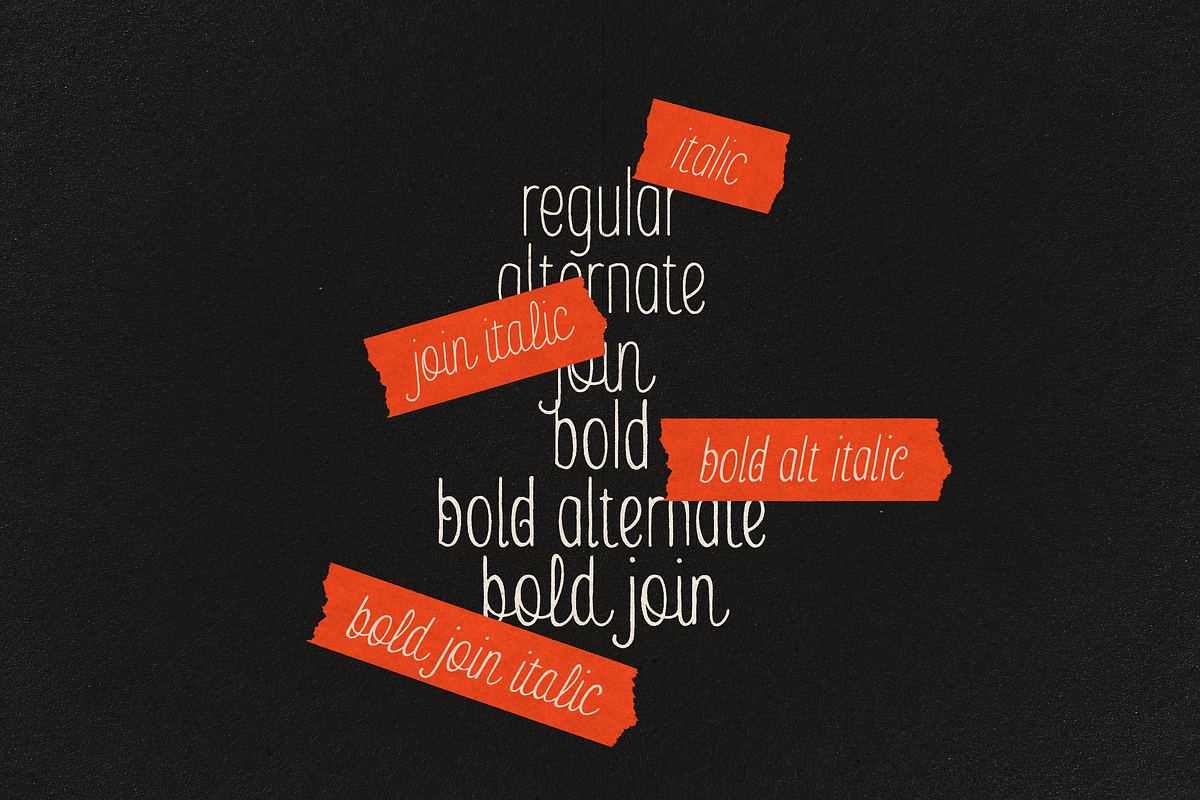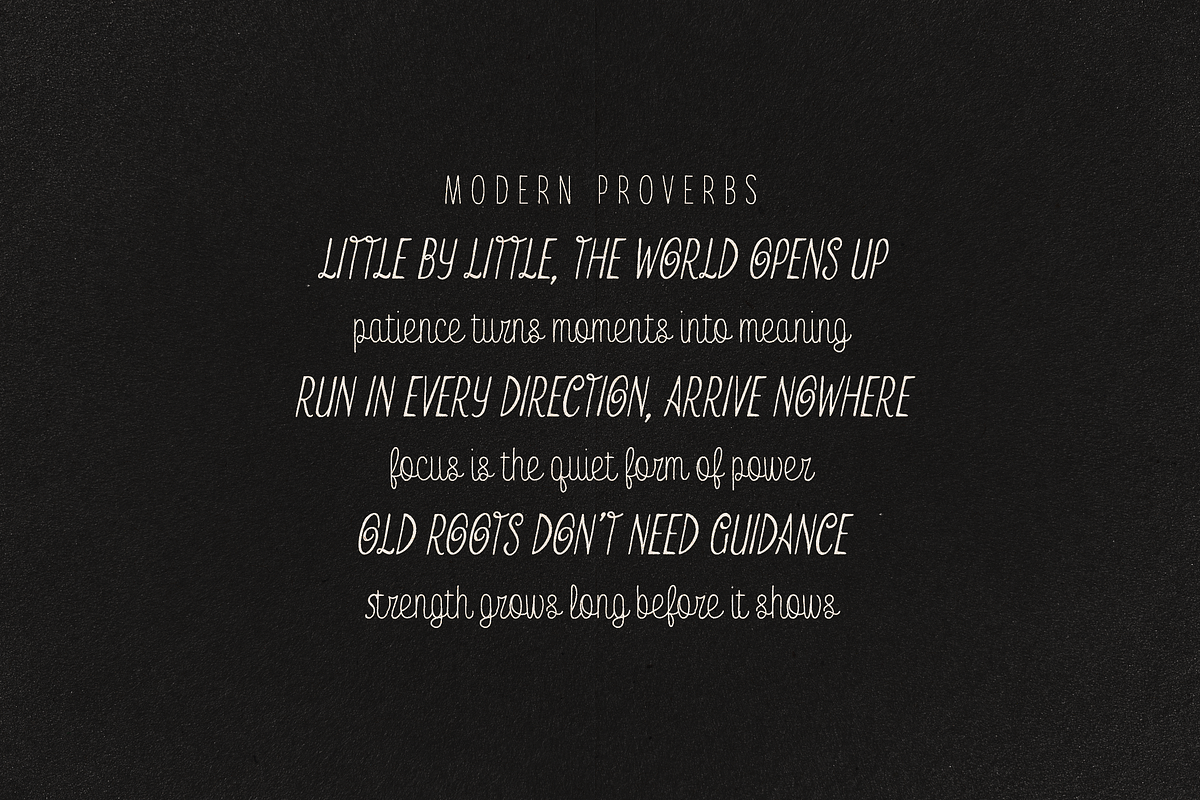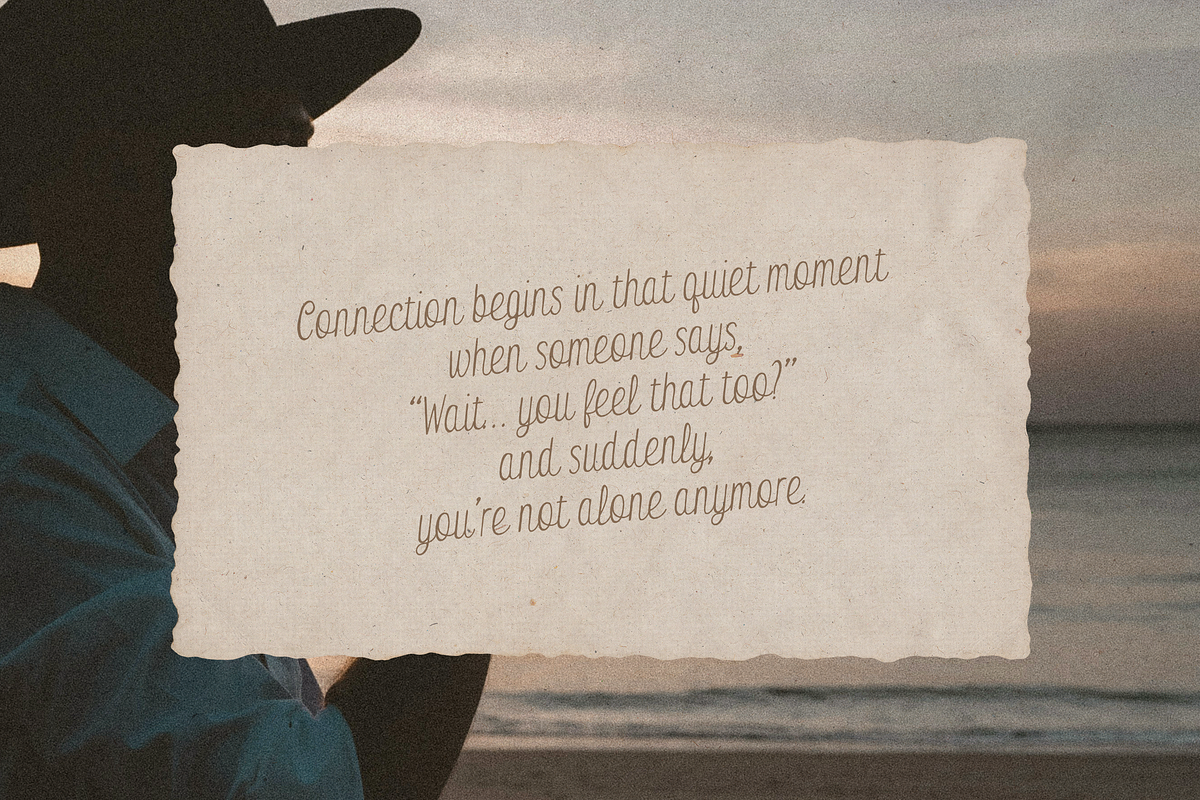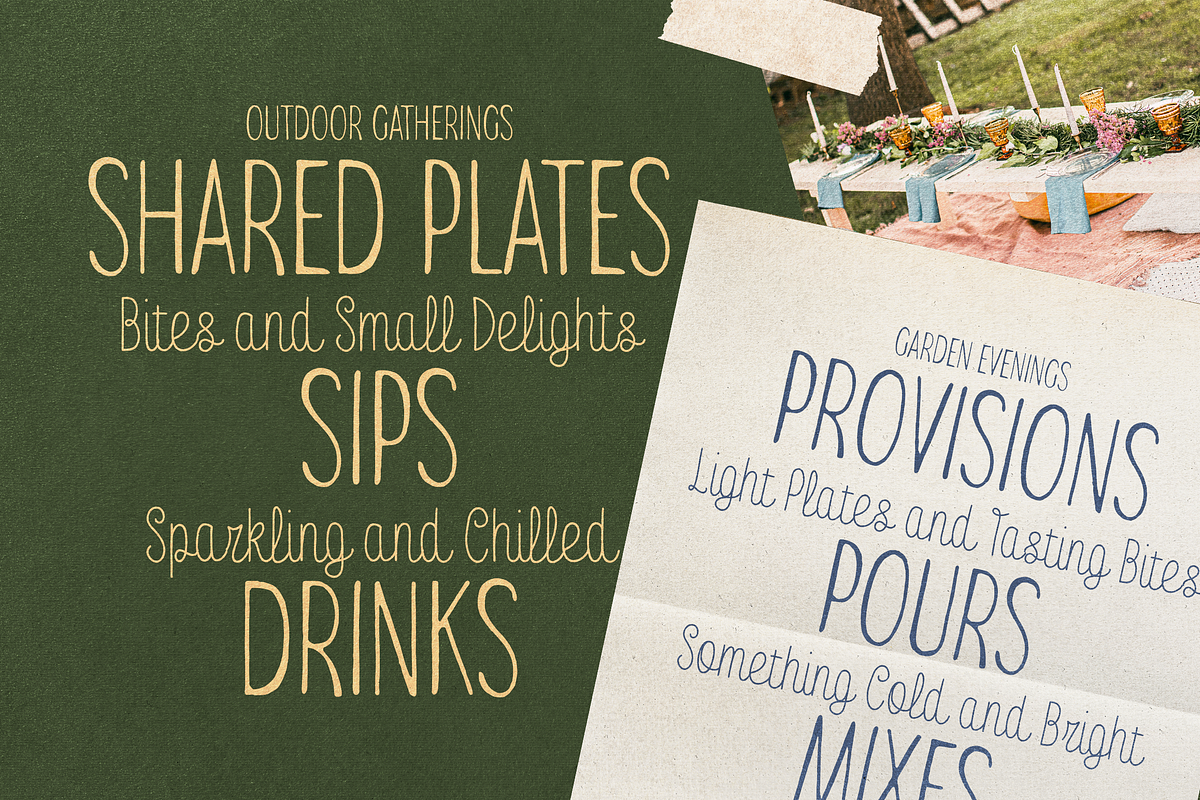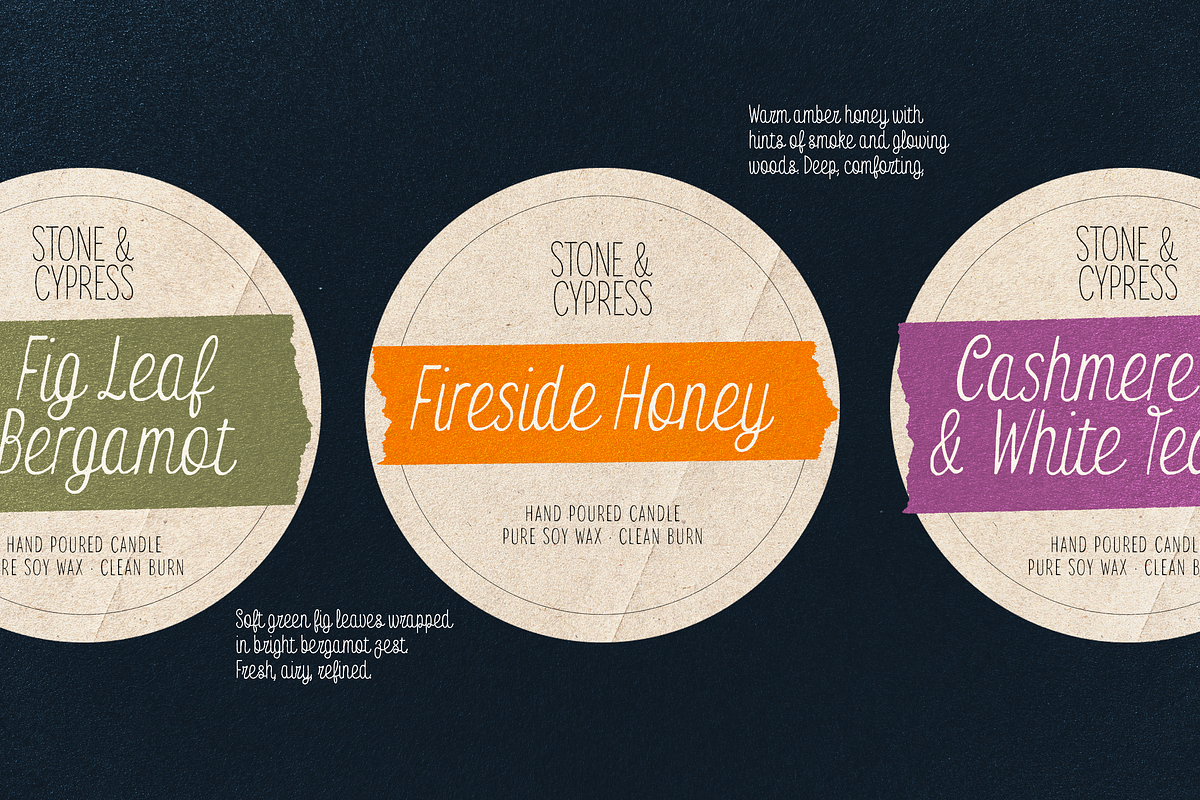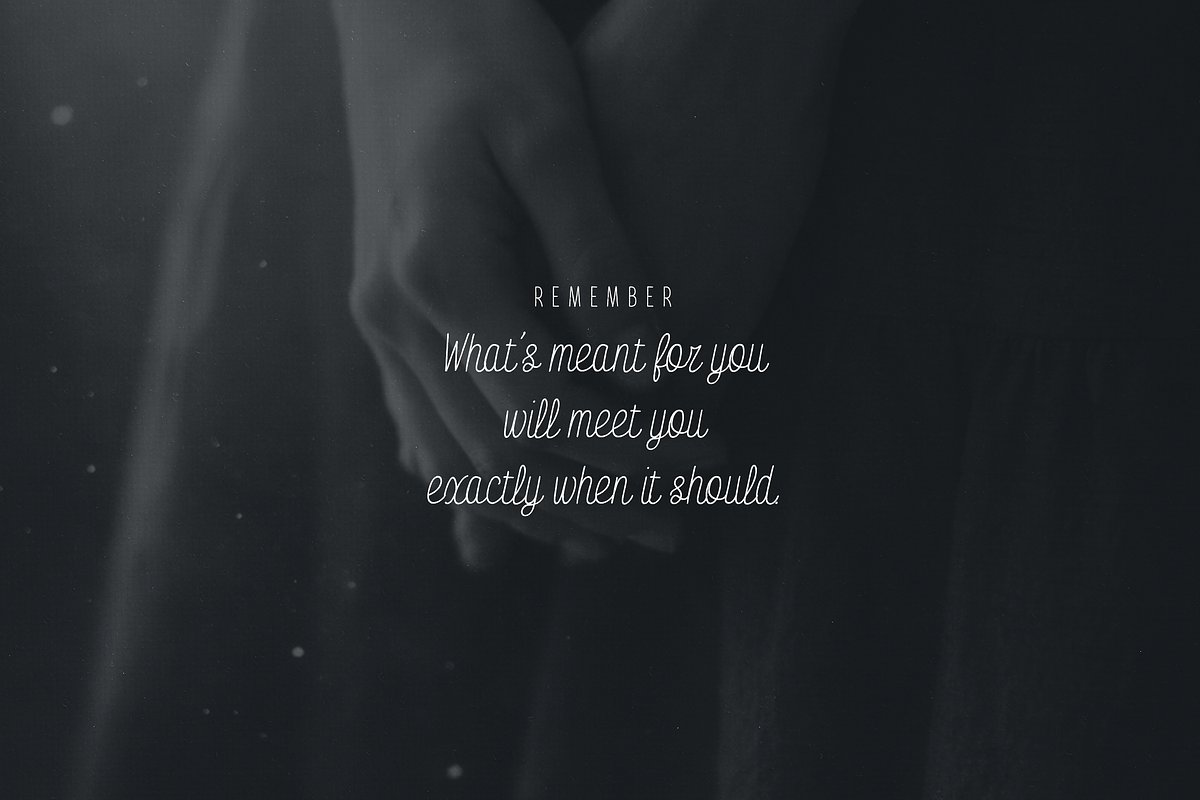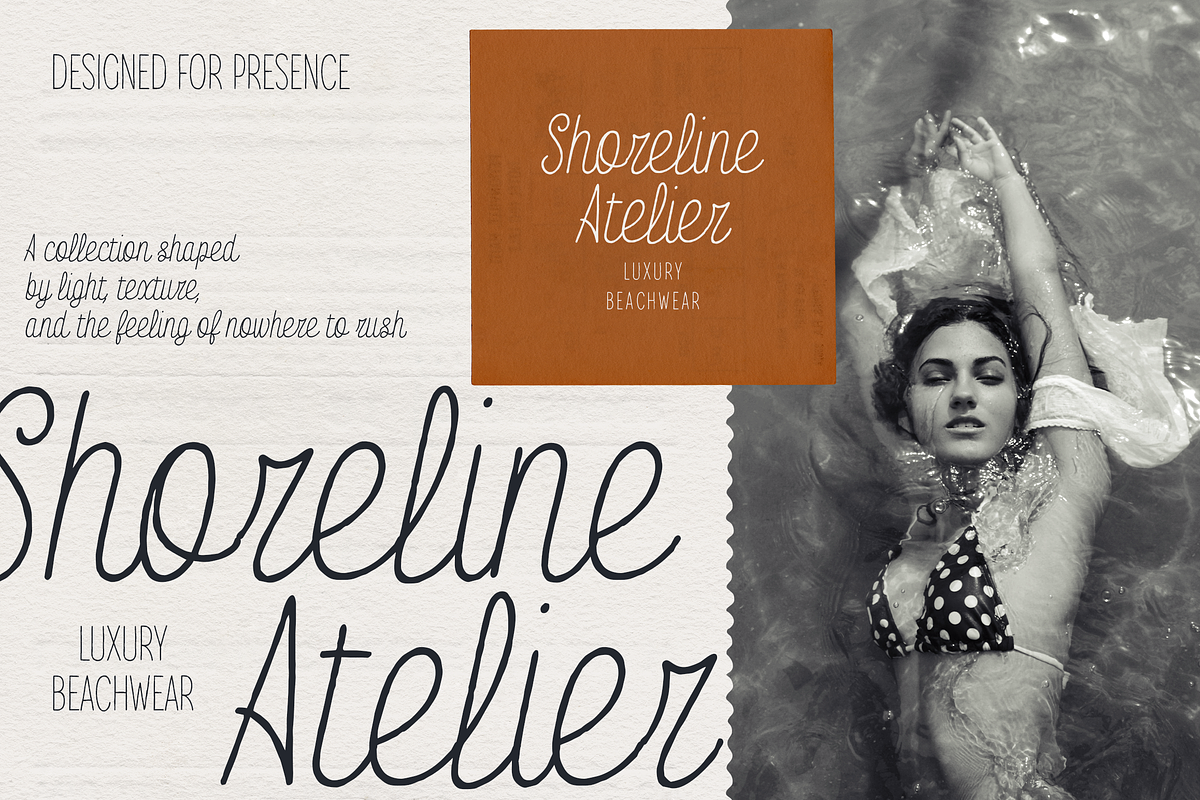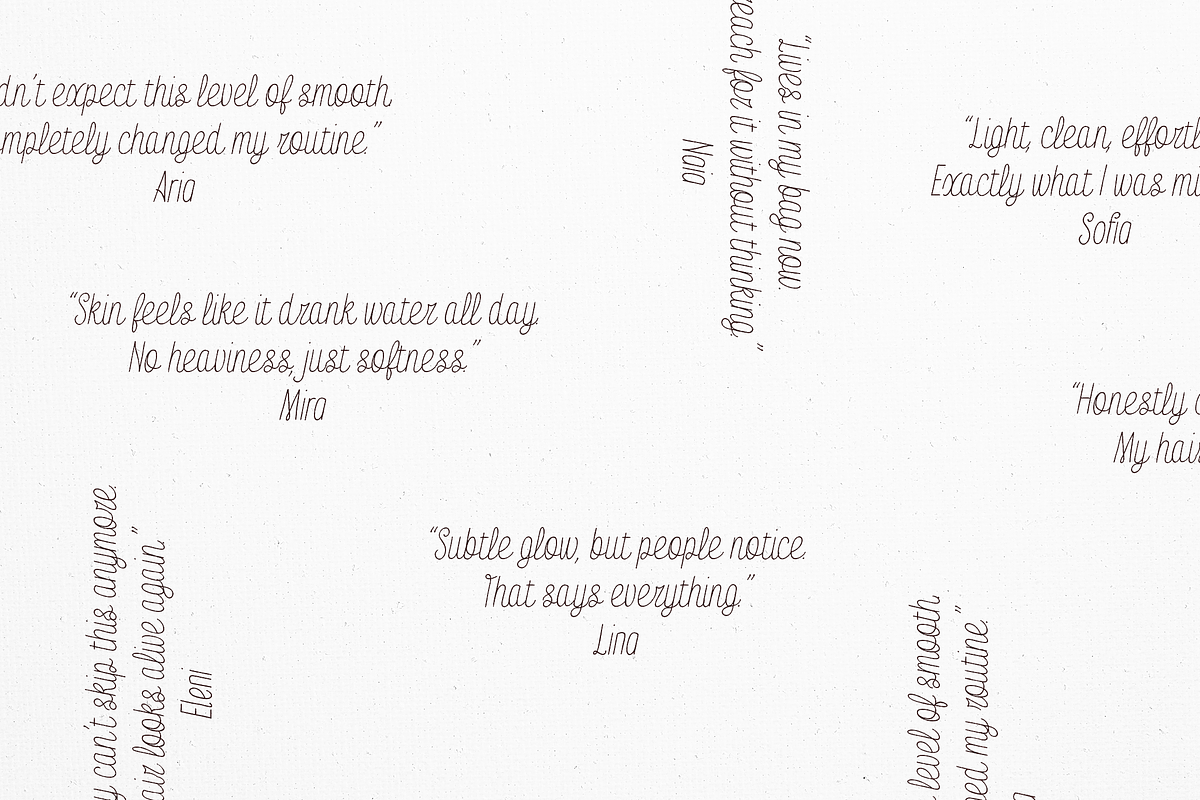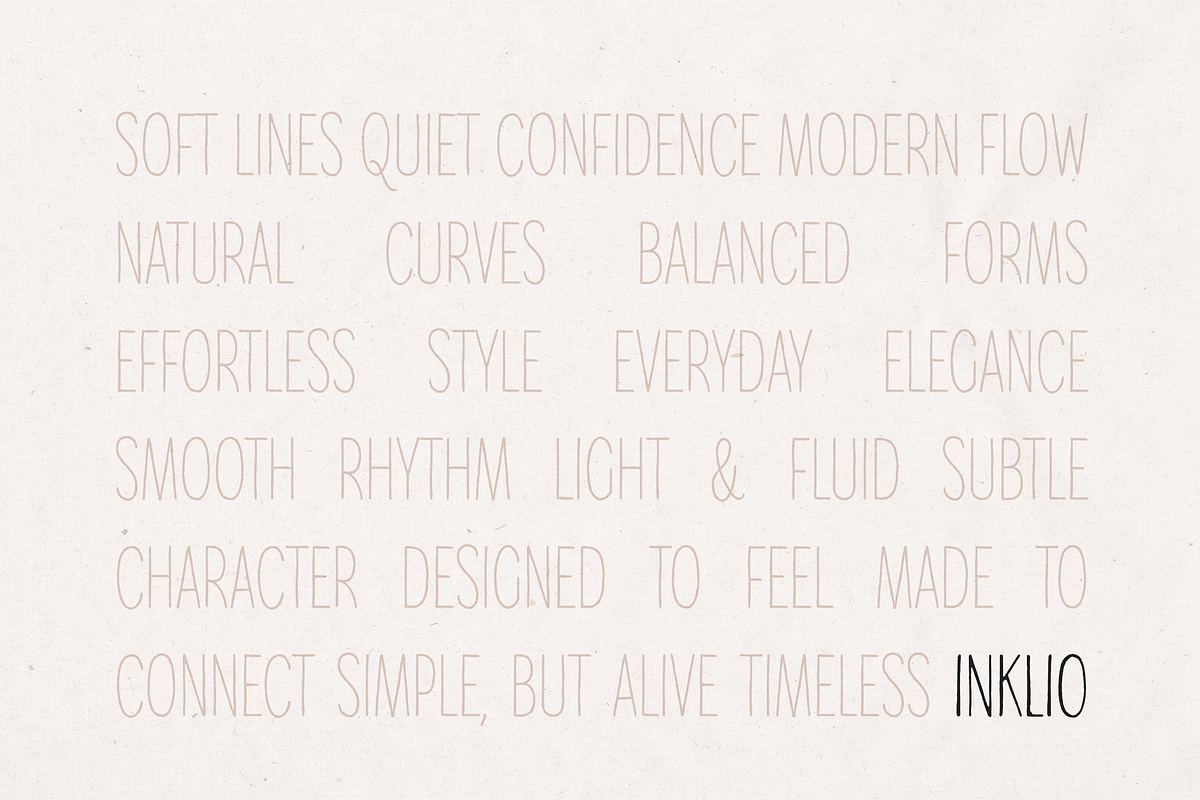
Inklio Handwritten Quirky Typeface
Meet Inklio - a playful, imperfect handwritten typeface designed to feel raw, human, and effortlessly expressive.
Inspired by natural pen strokes, casual notes, and organic lettering, Inklio brings a warm, authentic personality to any project. Its slightly irregular lines and charming imperfections make it perfect for designs that need to feel real, approachable, and full of character.
Whether you're crafting branding, packaging, social media, or editorial layouts, Inklo adapts beautifully thanks to its versatile 12-font family system.
What makes Inklo special?
- Authentic handwritten feel – imperfect, organic strokes
- Quirky & playful personality – ideal for modern lifestyle brands
- Highly versatile system – mix styles for dynamic typography
- Clean readability – despite its expressive nature
- Perfect for layering & pairing
Font Family Includes (12 Fonts)
A complete system built for flexibility:
- Regular Alternate
- Regular Join
- Bold
- Bold Alternate
- Bold Join
- Italic (for every style above)
This structure allows you to:
- switch between clean & connected handwriting
- add variation and realism
- create natural-looking typography compositions
- Branding & logos
- Packaging design (food, cosmetics, lifestyle)
- Social media & Instagram posts
- Editorial layouts & magazines
- Book covers & children’s books
- Café, bakery & restaurant menus
- Quotes, posters & prints
- Website headers & UI accents